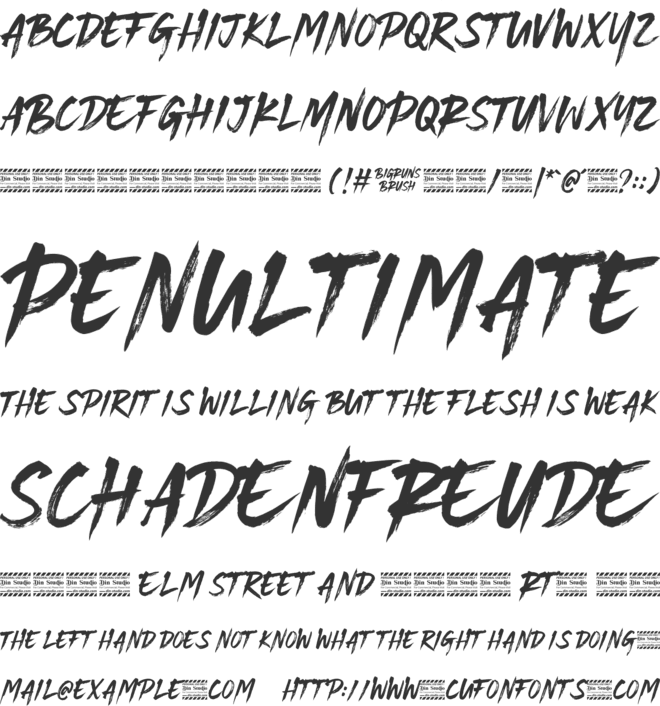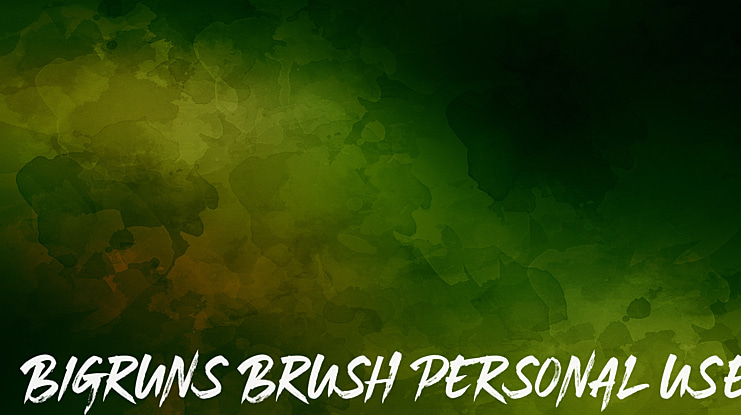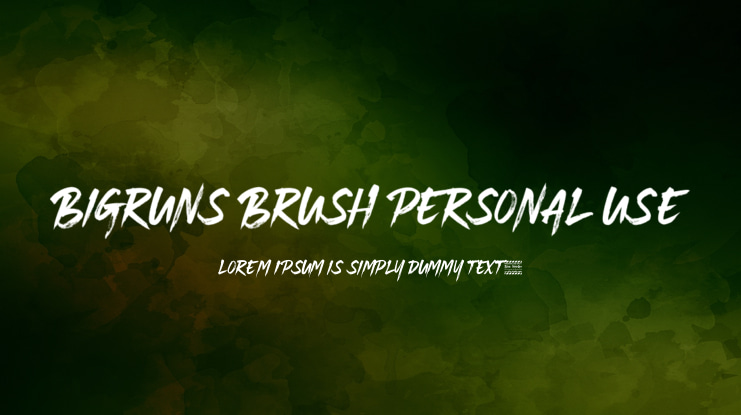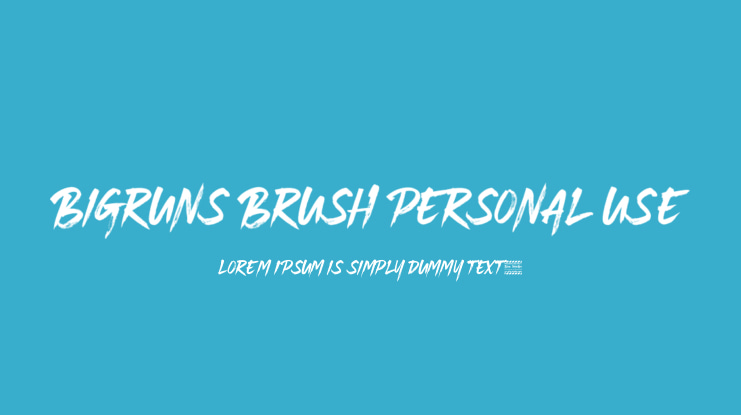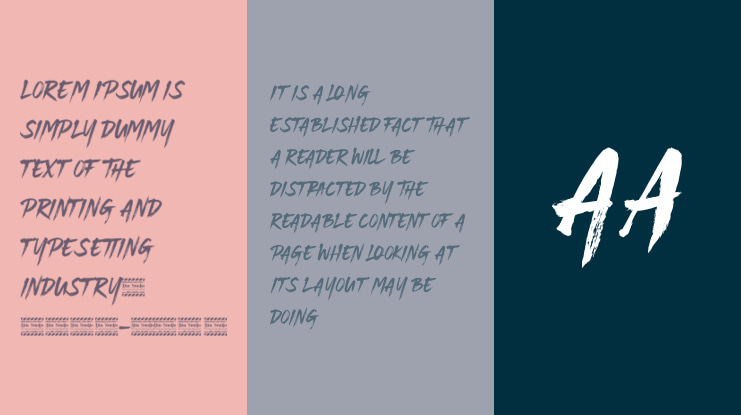
Bigruns Brush is a display font is accompanied by a gorgeous handcrafted script brush font that works
together in perfect harmony. This font made all in uppercase that easy on the eyes and nice to look
while it’s also easy to read. Designed primarily as a captivating font to add the right amount of modernity and style, the best choice to ensure a great font match for your designs and projects! Well suited to titles, poster designs, branding, quotes, logos and more.